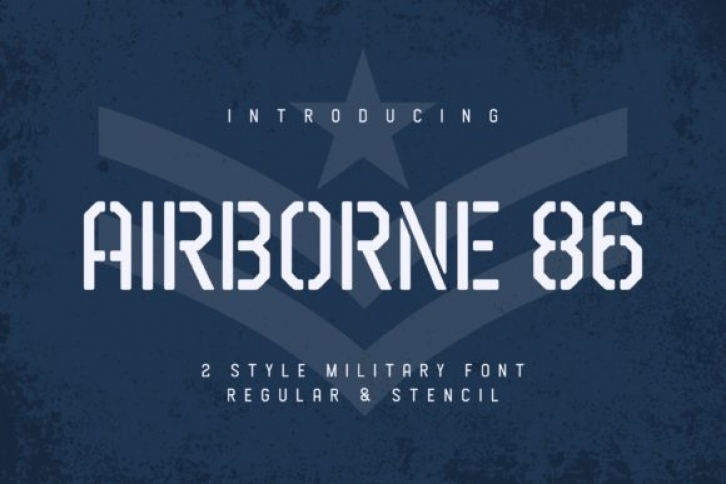
Airborne 86 feels playfully nostalgic and delivers an incredible vintage aesthetic. This display font will look outstanding in any context, whether it’s being used on busy backgrounds or as a standalone headline!